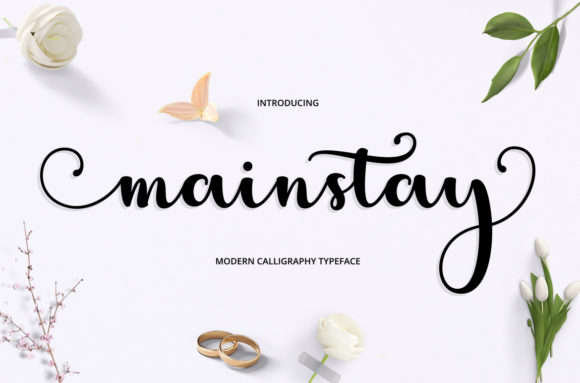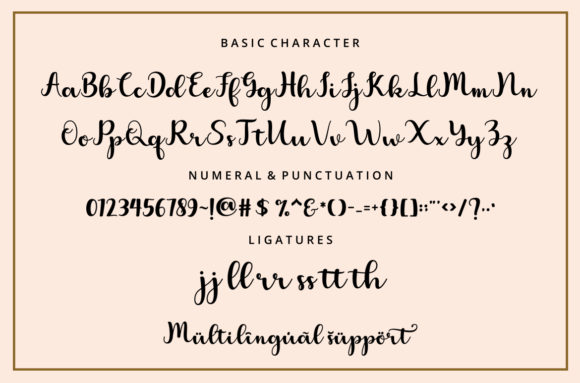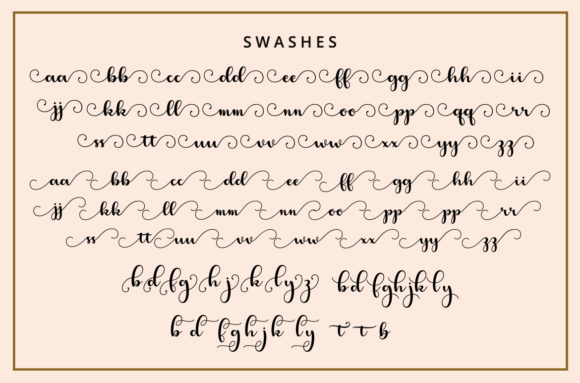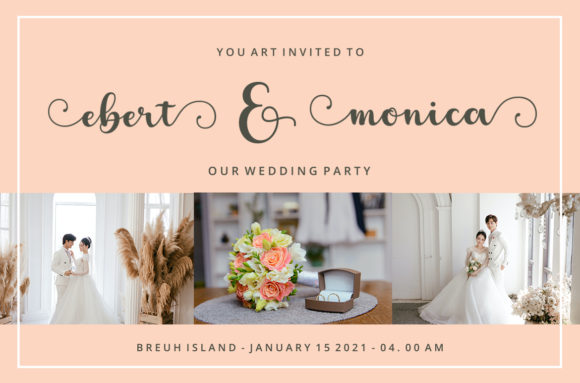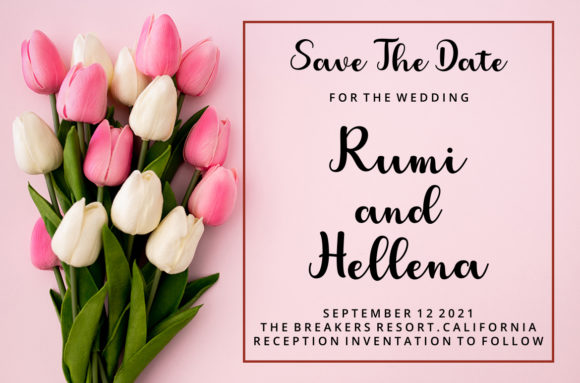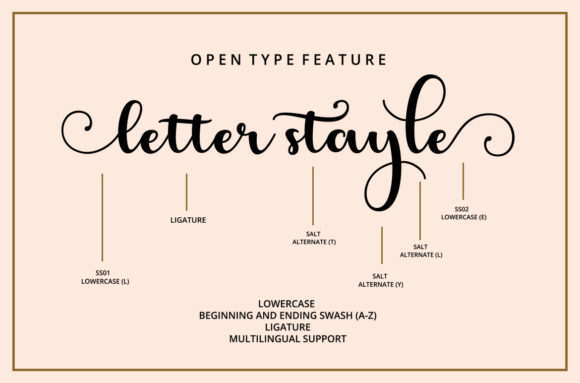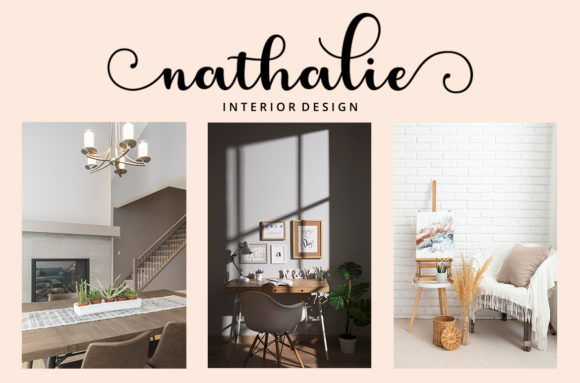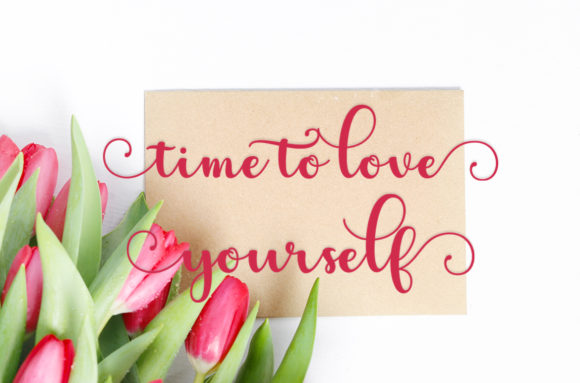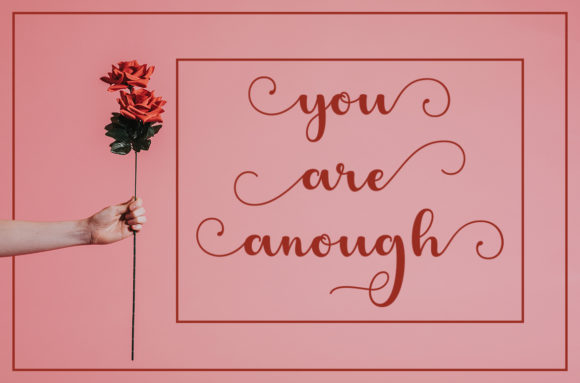
Mainstay Font
About Mainstay Font
Mainstay is a fresh, unique script with a carefree attitude and a playful edge.
Perfect for adding a quirky but casual feel, it comes with a large selection of natural-looking ligatures.
This font is perfect for logos, invitations, wedding designs, social media posts and much more!